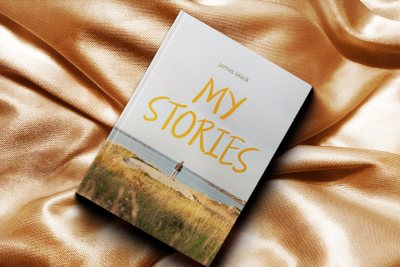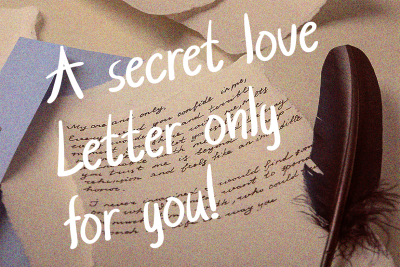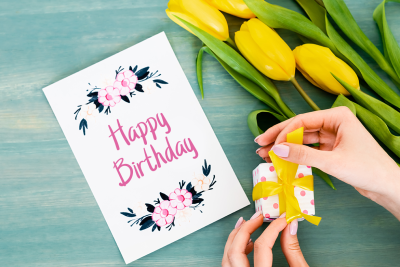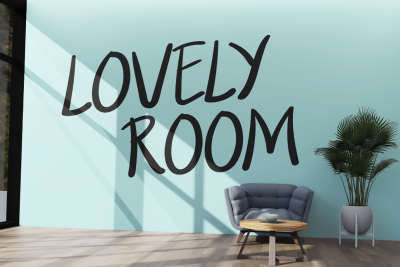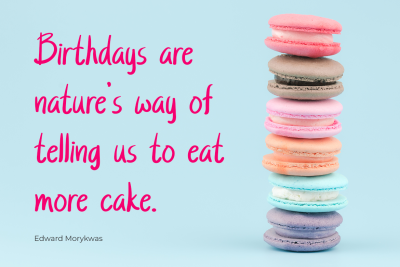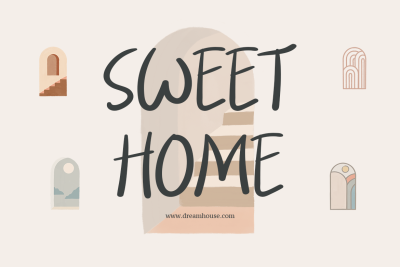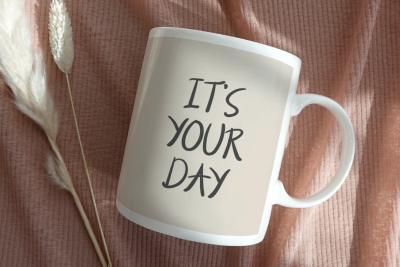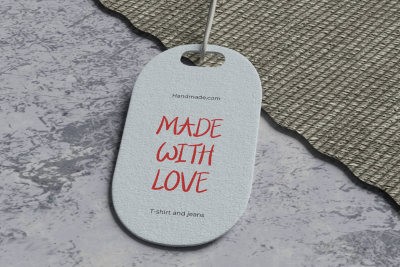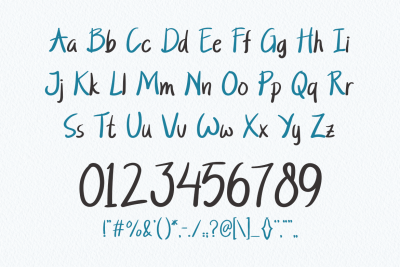
Handwriting Font Moonrake is a delicate and elegant typeface that exudes charm and sophistication. Inspired by natural penmanship, it features smooth curves and graceful strokes that create a soft yet confident impression. Moreover, the slightly whimsical letterforms bring a handwritten authenticity, making it a perfect choice for those seeking a balance between casual and refined aesthetics. Whether used for branding, invitations, or editorial designs, Moonrake seamlessly delivers warmth and personality with every word.
With a gentle yet stylish appeal, Moonrake is designed to enhance the beauty of any text while maintaining excellent readability. Additionally, its organic flow mimics authentic handwriting, making it feel personal and heartfelt. The subtle contrast in stroke weight further adds to its uniqueness, ensuring a harmonious blend of classic elegance and modern versatility. If you want to infuse a touch of charm into your designs, Moonrake is undoubtedly the perfect font to elevate your project.
Handwriting Font Moonrake Suitable For:
1. Wedding & Event Planners
Moonrake is an excellent choice for wedding invitations, event signage, and RSVP cards. Its elegant and romantic feel significantly enhances the sophistication of any special occasion.
2. Branding & Logo Designers
For businesses that want to project a refined yet approachable image, Moonrake is an ideal font. Furthermore, it works beautifully for boutique brands, fashion labels, and artisanal businesses, giving logos and packaging a unique personal touch.
3. Bloggers & Content Creators
Content creators looking for a soft, handwritten aesthetic will absolutely love Moonrake. Whether for blog headers, Instagram posts, or Pinterest graphics, this font effortlessly adds a stylish and engaging visual appeal.
4. Stationery & Print Designers
From greeting cards to journals and planners, Moonrakeโs flowing strokes add a handmade elegance that beautifully enhances printed materials. It also makes personal notes, thank-you cards, and packaging feel extra special.
5. Authors & Editorial Designers
For book covers, magazine layouts, or poetry collections, Moonrake provides a sophisticated, graceful typography option. As a result, it enhances readability while maintaining an artistic touch, making it perfect for emotionally engaging content.
Handwriting Font Moonrake is a timeless choice for those who appreciate the beauty of handwritten elegance. Whether for digital or print use, its versatility ensures that every design stands out with charm and warmth.